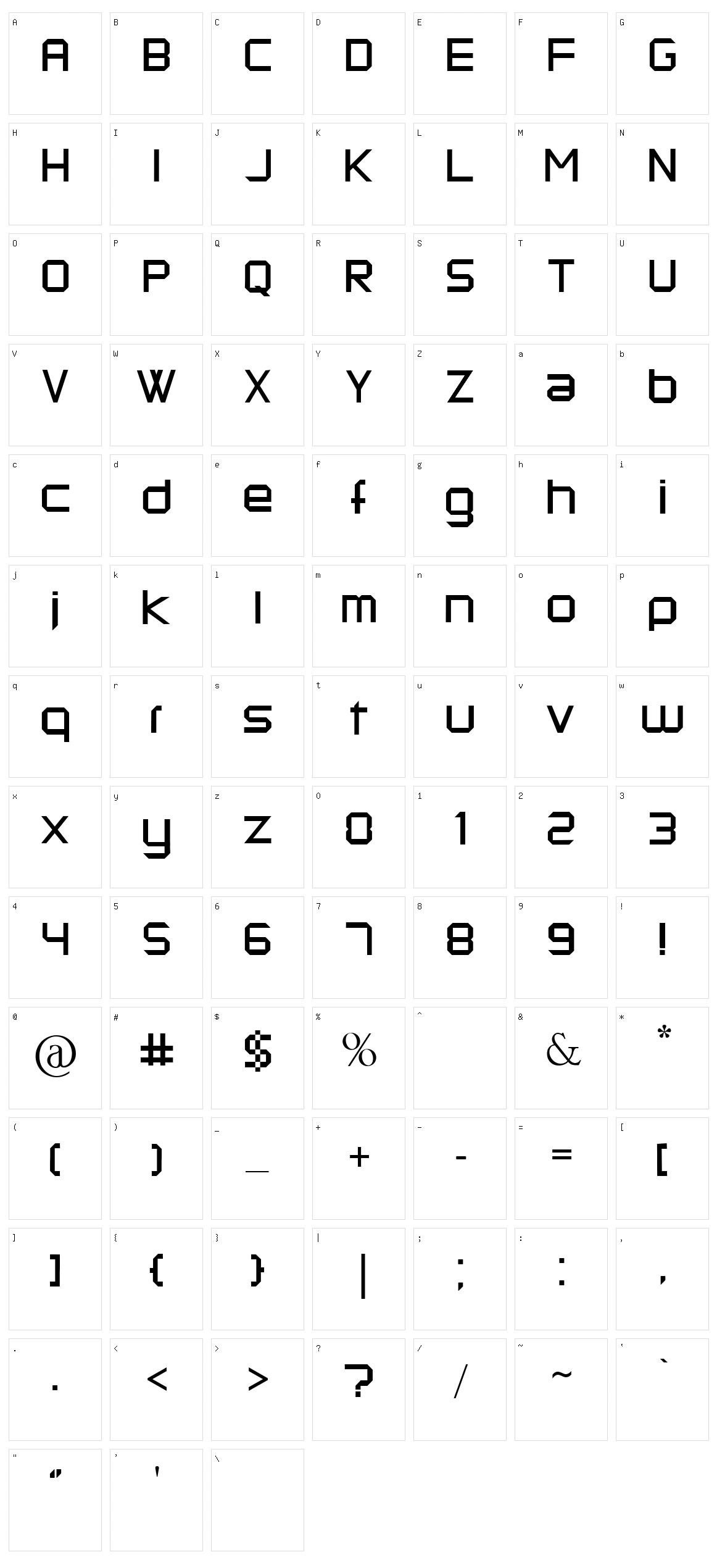
The free font Kermesse is carefully designed by Type Sailor, showcasing a thoughtful balance of creativity and usability and falls under the Square font style. When you download the ZIP file, it contains only 77.37 KB of font files, making it lightweight and quick to download. Please review the license details below to understand permitted usage and distribution rights. If license information is not available, we recommend using this font for personal projects only or contacting the author directly for commercial usage permissions.
This font was designed with a 45º inclination of conjuntions.